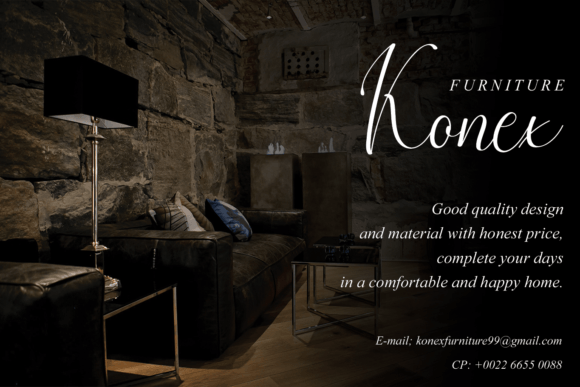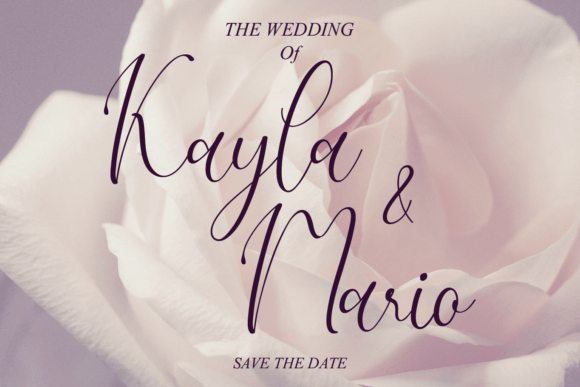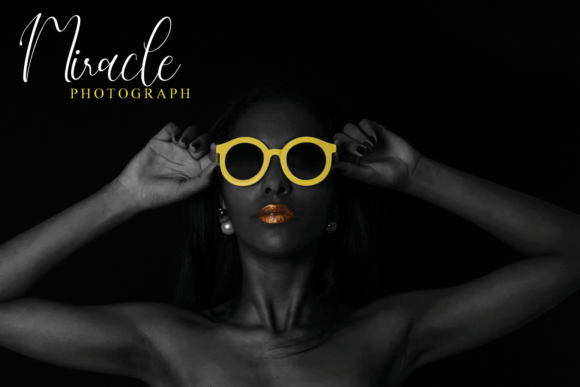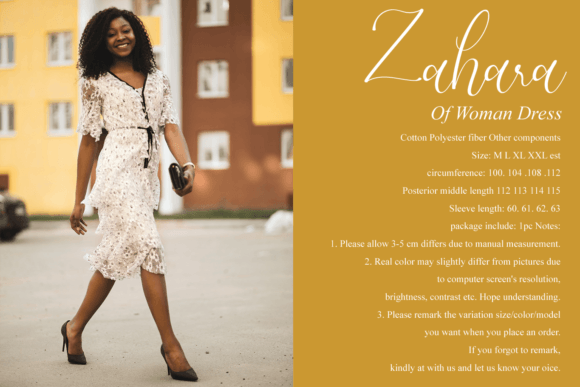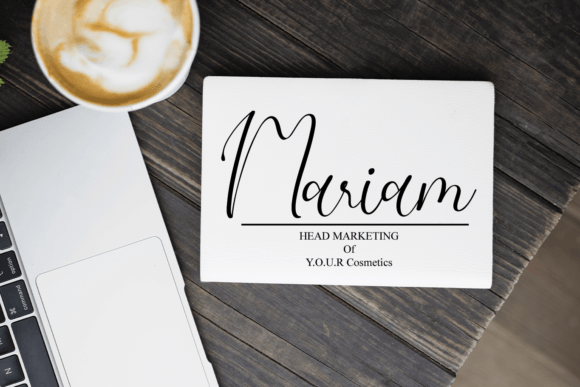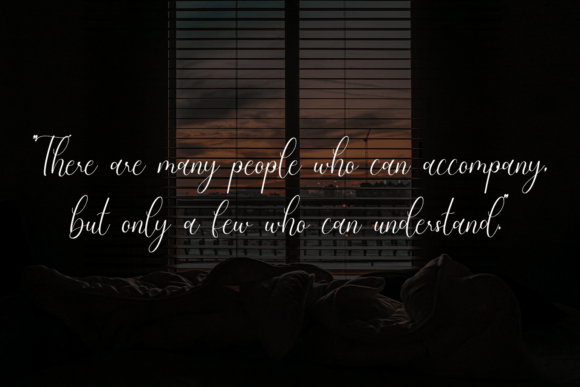
Introducing Darling Font: The Ultimate Romantic Calligraphy Script
Are you a designer or crafter looking for a font that exudes romance and sophistication? Look no further than Darling Font, a beautiful calligraphy script font that is sure to add a touch of luxury to any creative project. With its dancing characters and elegant flair, Darling Font is the perfect choice for anyone looking to create stunning designs that capture the heart.
What is Darling Font?
Darling Font is a romantic and sweet calligraphy script font that features characters that seem to dance along the baseline. This unique and charming font is designed to add a touch of whimsy and elegance to any design or project. Whether you’re creating wedding invitations, branding materials, or social media graphics, Darling Font is sure to make your designs stand out.
Key Features of Darling Font
- Romantic and Sweet: Darling Font is the perfect choice for anyone looking to create romantic and sweet designs. Its elegant and flowing script is sure to capture the heart.
- Dancing Characters: The characters in Darling Font seem to dance along the baseline, adding a touch of whimsy and playfulness to any design.
- Luxurious and Sophisticated: Darling Font is the perfect choice for anyone looking to add a touch of luxury and sophistication to their designs. Its elegant flair and beautiful script make it perfect for high-end branding and design projects.
- Versatile: Darling Font is a versatile font that can be used for a wide range of design projects, from wedding invitations and branding materials to social media graphics and more.
How to Use Darling Font
Darling Font is easy to use and can be incorporated into a wide range of design projects. Here are a few ideas to get you started:
- Wedding Invitations: Use Darling Font to create beautiful and romantic wedding invitations that set the tone for the big day.
- Branding Materials: Add a touch of luxury and sophistication to your branding materials, such as business cards, letterheads, and brochures.
- Social Media Graphics: Use Darling Font to create stunning social media graphics that capture the heart and stand out in a crowded feed.
- Stationery: Add a touch of elegance and whimsy to your stationery, such as notebooks, journals, and greeting cards.
Benefits of Using Darling Font
There are many benefits to using Darling Font in your design projects. Here are a few:
- Unique and Eye-Catching: Darling Font is a unique and eye-catching font that is sure to make your designs stand out.
- Emotional Connection: The romantic and sweet nature of Darling Font is sure to create an emotional connection with your audience.
- High-Quality: Darling Font is a high-quality font that is designed to produce stunning results.
- Easy to Use: Darling Font is easy to use and can be incorporated into a wide range of design projects.
In conclusion, Darling Font is a beautiful and romantic calligraphy script font that is sure to add a touch of luxury and sophistication to any design project. With its dancing characters and elegant flair, Darling Font is the perfect choice for designers and crafters looking to create stunning designs that capture the heart. Whether you’re creating wedding invitations, branding materials, or social media graphics, Darling Font is the perfect choice.